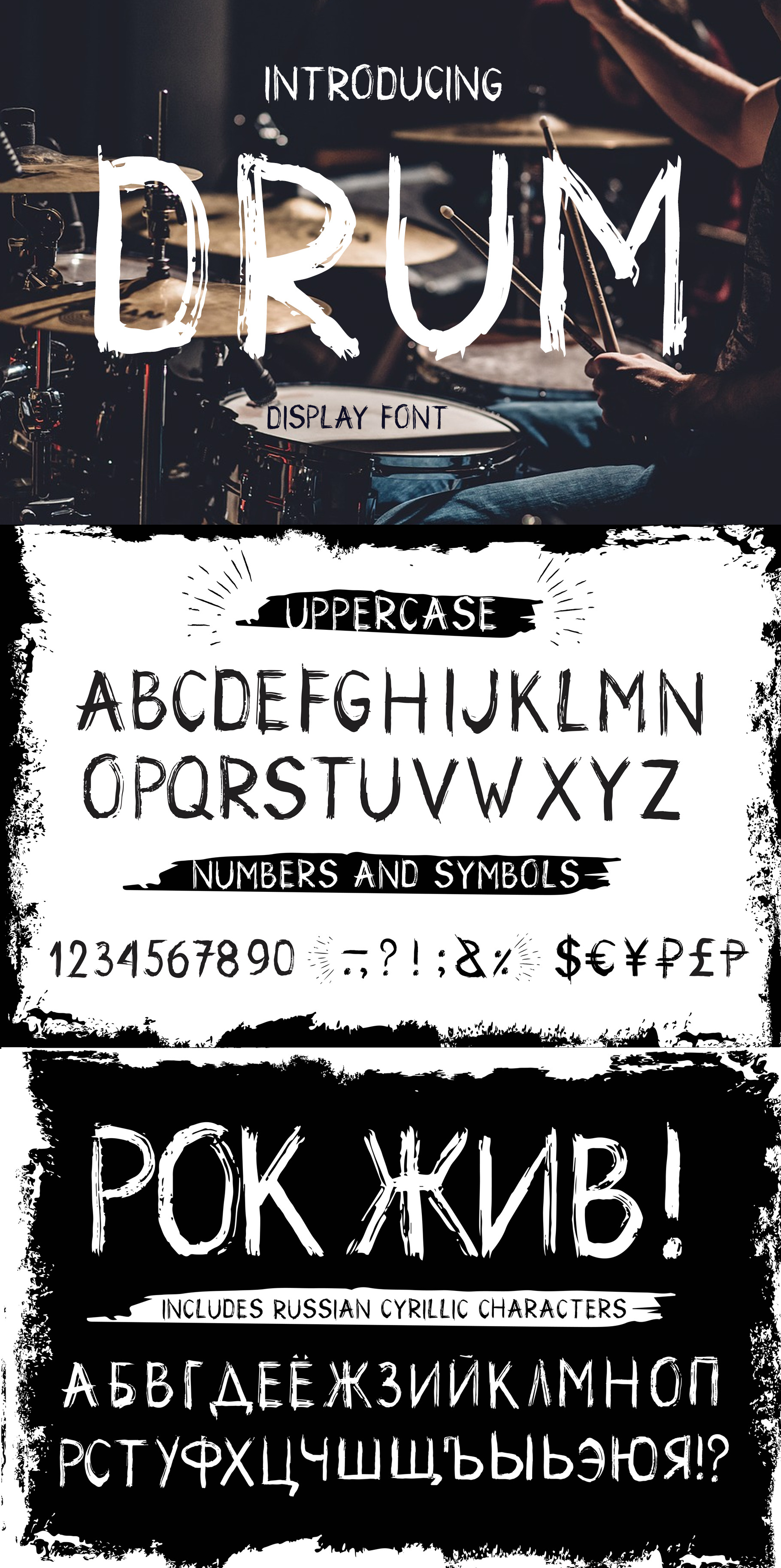
Drum. Handmade brush display font
Drum - handmade brush display font in grunge style. It's font no lowercase glyphs. That makes it perfect for headlines, design logos, quotes prints on t-shirts, rock festivals.
Includes Russian Cyrillic characters.
Contains only uppercase letters and digits.